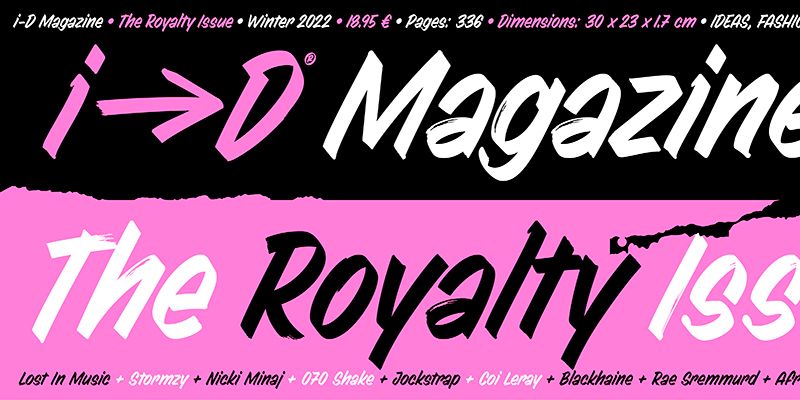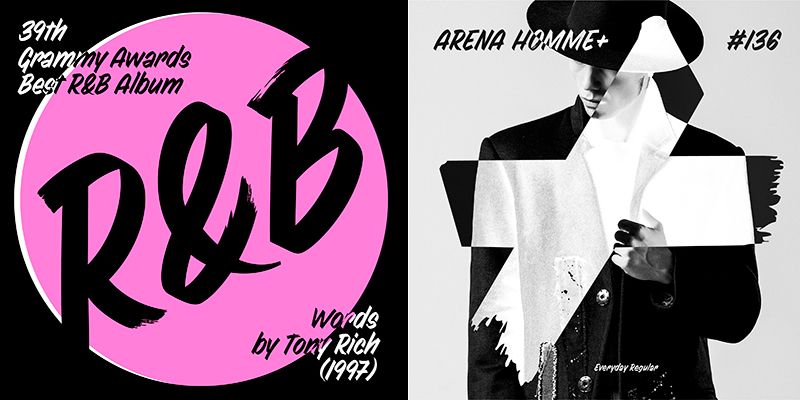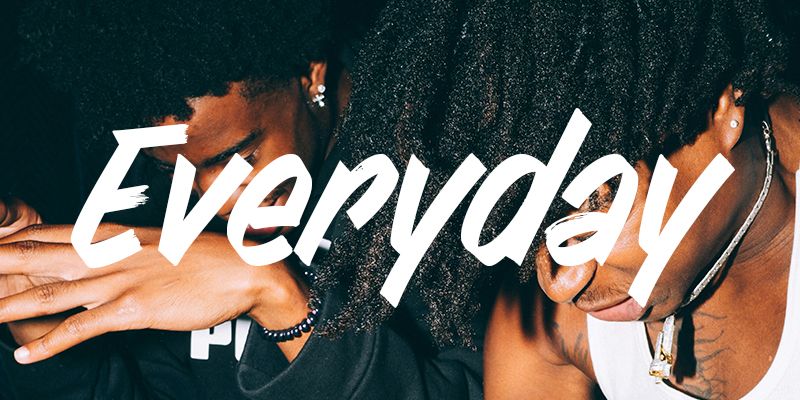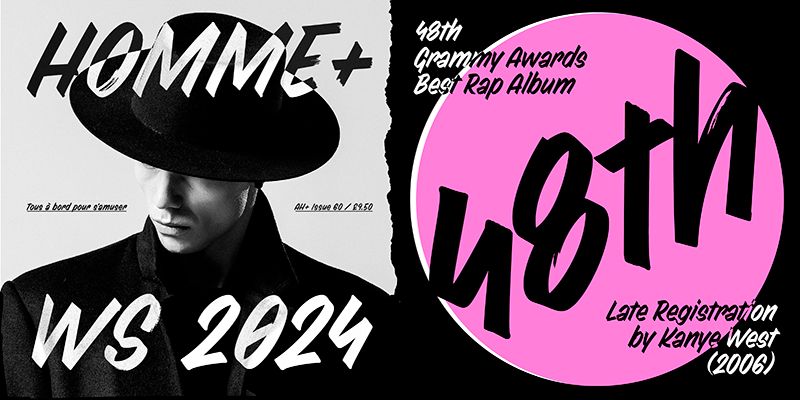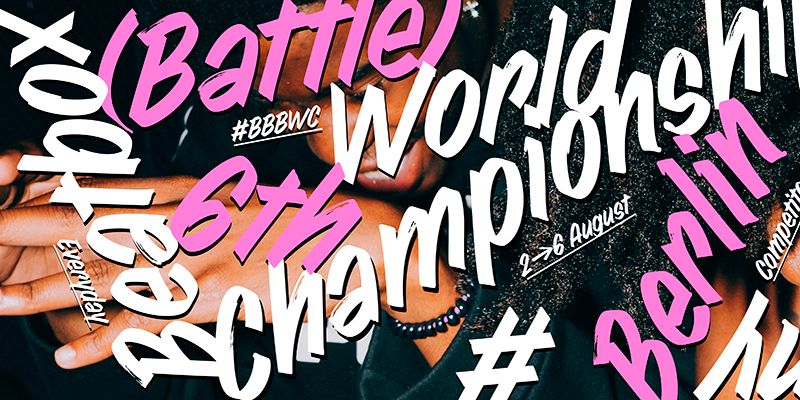
Get scratchy and dirty with this graffiti-inspired script typeface! Everyday captures the energy of street art with expressiveness and a little bit of scratches!
The digitisation of handwritten fonts is inherently a sensitive digital reconstruction. It is not easy to determine the degree of defects, so the typeface is well-drawn but still has believable messiness in some details. Everyday is a reflection of the cheekiness and roughness of dry strokes with a used felt tip marker that occasionally drops ink or doesn’t make a perfect stem. You need to push on the marker quite a bit when writing because it’s already written out. The speed and haste will also show itself in the slight bending of the stems or its sloppy finishing. Everyday font looks better in a tight fit. Characters merge, collide and bind into each other, as they naturally do when handwriting. Lowercases have a higher x-height, which is especially better for writing with a sweeping gesture. I’ve also added small capitals to the glyph set for titles and headlines.